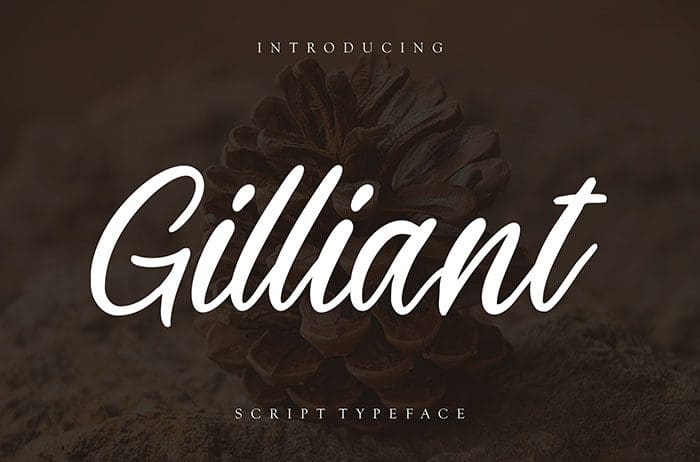
Gilliant Script Font
Gilliant is a script font with a natural personal touch. Gilliant is perfect for branding projects, logo, social media posts, labels, and many more. Thanks to Creatype Studio for sharing this font! Take a look at this portfolio for more of his stunning fonts.